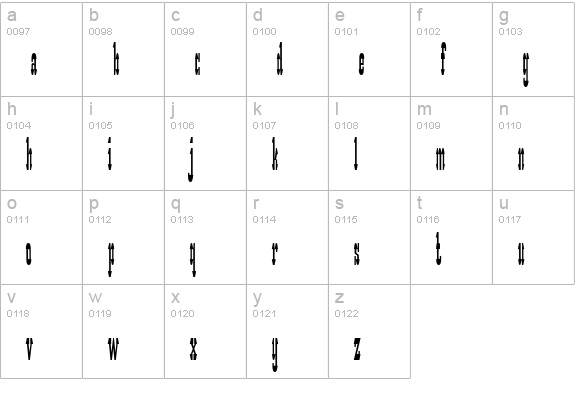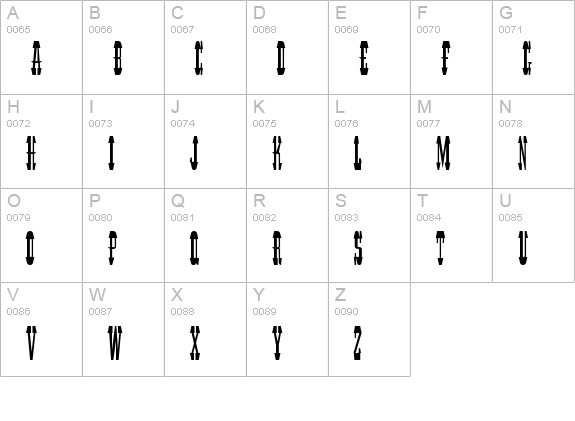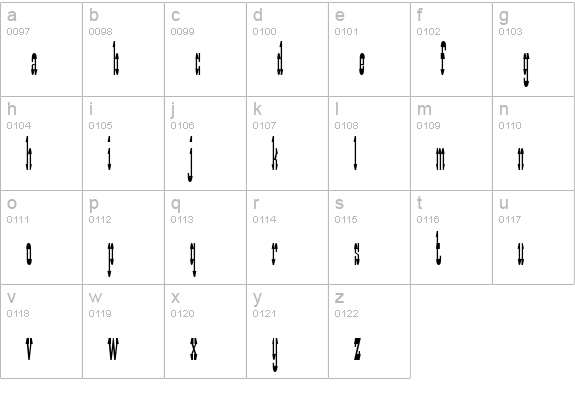
Cattle Annie Font Details
Cattle Annie font is a charming and versatile typeface that exudes a rustic and vintage feel. With its bold yet graceful curves and distinctive letterforms, Cattle Annie is perfect for adding a touch of old-world charm to your designs. This font is ideal for a wide range of projects, from branding and logo design to packaging and invitations. The best part? Cattle Annie font is completely free to download at FontsMarket.com. So go ahead and add this elegant and unique typeface to your font collection today and elevate your designs with its timeless appeal.